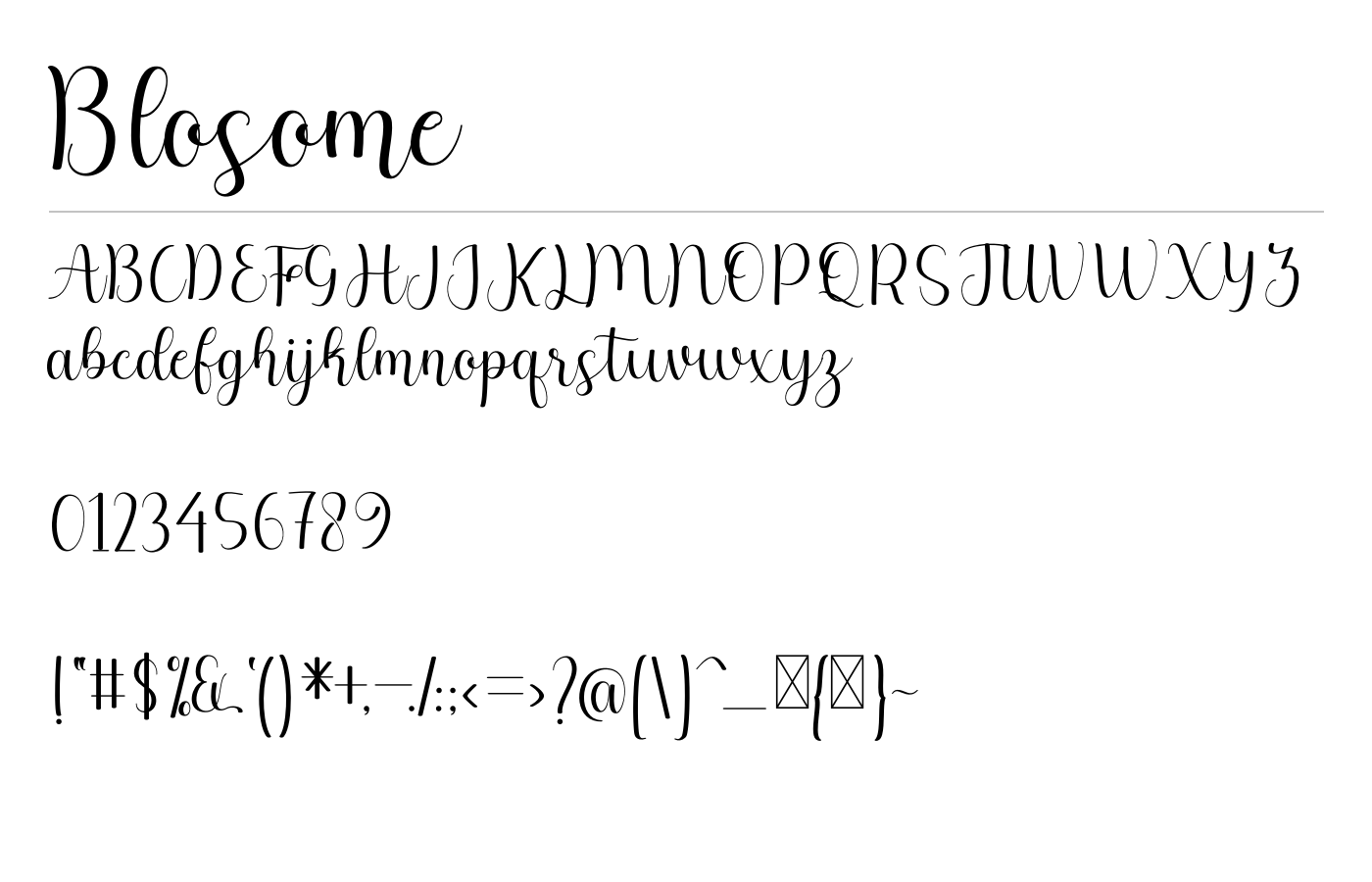
Blosome is a graceful script font with a delicate, hand-lettered style that combines flowing strokes and elegant curves. Its light weight and narrow proportions give it a refined, airy feel, making it perfect for invitations, branding, and projects that require a soft, sophisticated touch. This font shines in designs that aim to convey romance, femininity, or a personalized, artistic vibe.
Blosome Font
About Blosome Font
| Font family | Blosome Font |